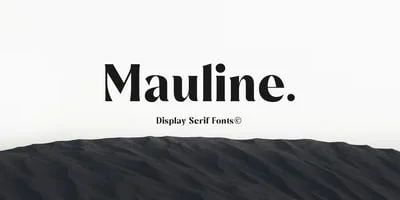
Mauline Font
The Mauline Font excels in various design applications including elegant feminine branding, sophisticated beauty salon signage, graceful fashion boutique communications, refined cosmetics packaging, delicate jewelry brand identities, elegant wedding planning materials, sophisticated lifestyle magazine layouts, graceful spa wellness promotions, refined feminine product marketing, and distinguished women's projects that demand feminine elegance and sophisticated grace.
What makes the Mauline Font exciting is its exquisite embodiment of feminine sophistication and graceful elegance through letterforms that capture the essence of refined femininity and the timeless appeal of sophisticated women's culture. This typeface demonstrates exceptional grace through carefully crafted characters that suggest the flowing lines of elegant fashion, the delicate strength of confident femininity, and the sophisticated beauty that defines authentic women's lifestyle and premium feminine brands. The font's feminine personality makes it perfect for beauty companies and women's lifestyle organizations seeking to communicate sophisticated femininity, elegant refinement, and the kind of graceful sophistication that creates memorable feminine experiences through typography that literally flows with elegant grace.
The Mauline Font family typically includes graceful weight variations that enhance the feminine aesthetic, featuring elegant proportions and extended character sets optimized for beauty communications and feminine applications. These family options often include sophisticated alternates, feminine symbols, and elegant decorative elements that provide designers with comprehensive tools for creating authentically feminine typography that celebrates women's elegance while maintaining contemporary design appeal and beauty industry credibility.
Beauty professionals and feminine lifestyle brands consistently select Mauline Font for projects requiring typography that communicates feminine authenticity and sophisticated elegance. This typeface delivers exceptional performance in beauty marketing, feminine branding, and elegant communications where establishing grace and creating sophisticated atmosphere is essential for feminine audience engagement. The font's elegant character makes it particularly effective for cosmetics and fashion applications. Download Mauline Font today to access this elegantly sophisticated typeface that transforms feminine communications with its graceful beauty and refined sophistication, creating compelling women's experiences that honor the magnificent elegance of feminine culture while celebrating the sophisticated grace that defines authentic women's lifestyle and feminine excellence.